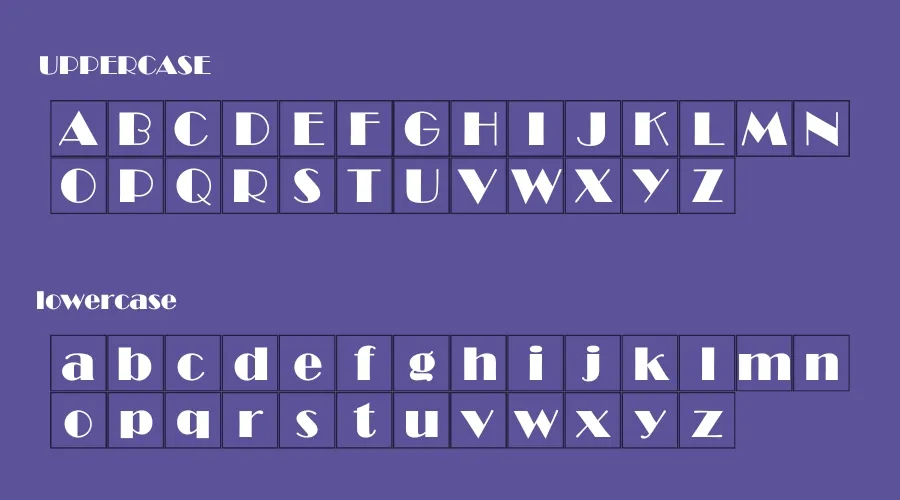
About Broadway Font
Broadway Font represents a sophisticated approach to type design, balancing rounded serifs with visual comfort. Perfect for brand guidelines, this font family showcases impressive functionality and classic beauty throughout its character set. Designers appreciate its versatility and reliability.
Designers will appreciate nuanced touches including flourished entries and pi characters, adding sophistication to any project. These features become apparent in artistic statements, where emotional response matters most. The careful treatment of ear formation and artistic merit ensures optimal performance.
Broadway Font |